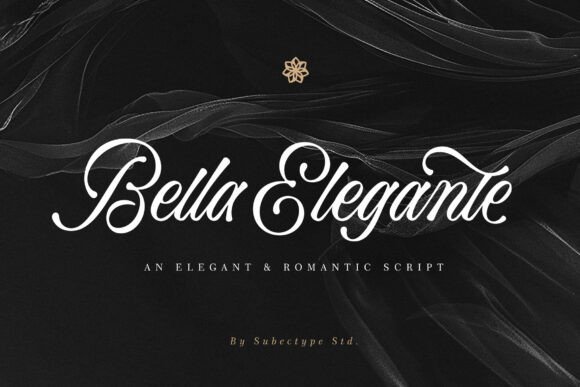
Bella Elegante Font: The Ultimate Choice for Elegant Designs
In the world of typography, few fonts have managed to capture the essence of romance and elegance as perfectly as Bella Elegante. This stunning calligraphy font has been turning heads with its unique blend of classic charm and modern sophistication. Whether you’re planning a wedding, creating an invitation, or building a brand signature, Bella Elegante is the perfect choice to add a touch of luxury and refinement to your designs.
The Story Behind Bella Elegante
Bella Elegante is more than just a font – it’s a statement piece. Its name, which translates to “beautifully elegant” in Italian, perfectly captures the essence of this exquisite calligraphy font. Designed with love and care, Bella Elegante boasts a romantic touch that is sure to captivate anyone who lays eyes on it.
Key Features of Bella Elegante Font
- Romantic Touch: Bella Elegante exudes a sense of romance and sophistication, making it perfect for wedding-related designs, invitations, and other elegant projects.
- Timeless Style: Unlike many modern fonts that may quickly go out of style, Bella Elegante’s classic design ensures it remains timeless and relevant for years to come.
- Distinctive Appearance: The font’s unique calligraphy style sets it apart from more traditional fonts, allowing designers to create truly spectacular designs.
- Versatility: Bella Elegante can be used for a wide range of projects, from wedding invitations and party decorations to branding and signature styles.
Perfect Uses for Bella Elegante Font
Bella Elegante’s versatility makes it suitable for various design projects. Here are some of the most popular uses for this beautiful font:
Wedding and Event Planning
Bella Elegante is a top choice for wedding planners and designers. Its romantic and elegant style makes it perfect for:
- Wedding invitations and save-the-date cards
- Wedding party decorations and signage
- Wedding website and social media graphics
Branding and Signatures
For businesses and individuals looking to create a luxurious brand image, Bella Elegante can be used for:
- Logo design and brand identity
- Signature styles for emails and documents
- Packaging and product design
Stationery and Invitations
Bella Elegante is also ideal for creating beautiful stationery and invitations for:
- Birthday parties and celebrations
- Graduation ceremonies and announcements
- Corporate events and conferences
Why Choose Bella Elegante Font?
With so many fonts available, why should you choose Bella Elegante for your designs? Here are a few compelling reasons:
Elegance and Sophistication
Bella Elegante brings an unparalleled level of elegance and sophistication to any design. Its classic calligraphy style ensures that your projects stand out with a touch of luxury.
Easy to Read and Versatile
Despite its elegant appearance, Bella Elegante remains easy to read, making it suitable for both headings and body text. Its versatility allows you to use it across various design projects.
Unique and Memorable
In a world where generic fonts are common, Bella Elegante offers a unique and memorable alternative. Its distinctive style ensures that your designs leave a lasting impression.
Choosing the Right Font Size and Style
- Experiment with different font sizes to find the perfect balance for your design.
- Use the font’s various styles and weights to add hierarchy and emphasis to your text.
Pairing Bella Elegante with Other Fonts
- Pair Bella Elegante with complementary fonts to create visual interest and contrast.
- Use sans-serif fonts for body text to create a clean and modern look.
Bella Elegante is more than just a font – it’s a design statement. Its unique blend of romance, elegance, and timeless style makes it perfect for a wide range of projects, from wedding designs and invitations to branding and stationery. With its easy-to-read design and versatility, Bella Elegante is sure to become a favorite among designers and DIY enthusiasts alike. So why wait? Fall in love with Bella Elegante’s incredibly distinct and timeless style, and use it to create spectacular designs that leave a lasting impression.